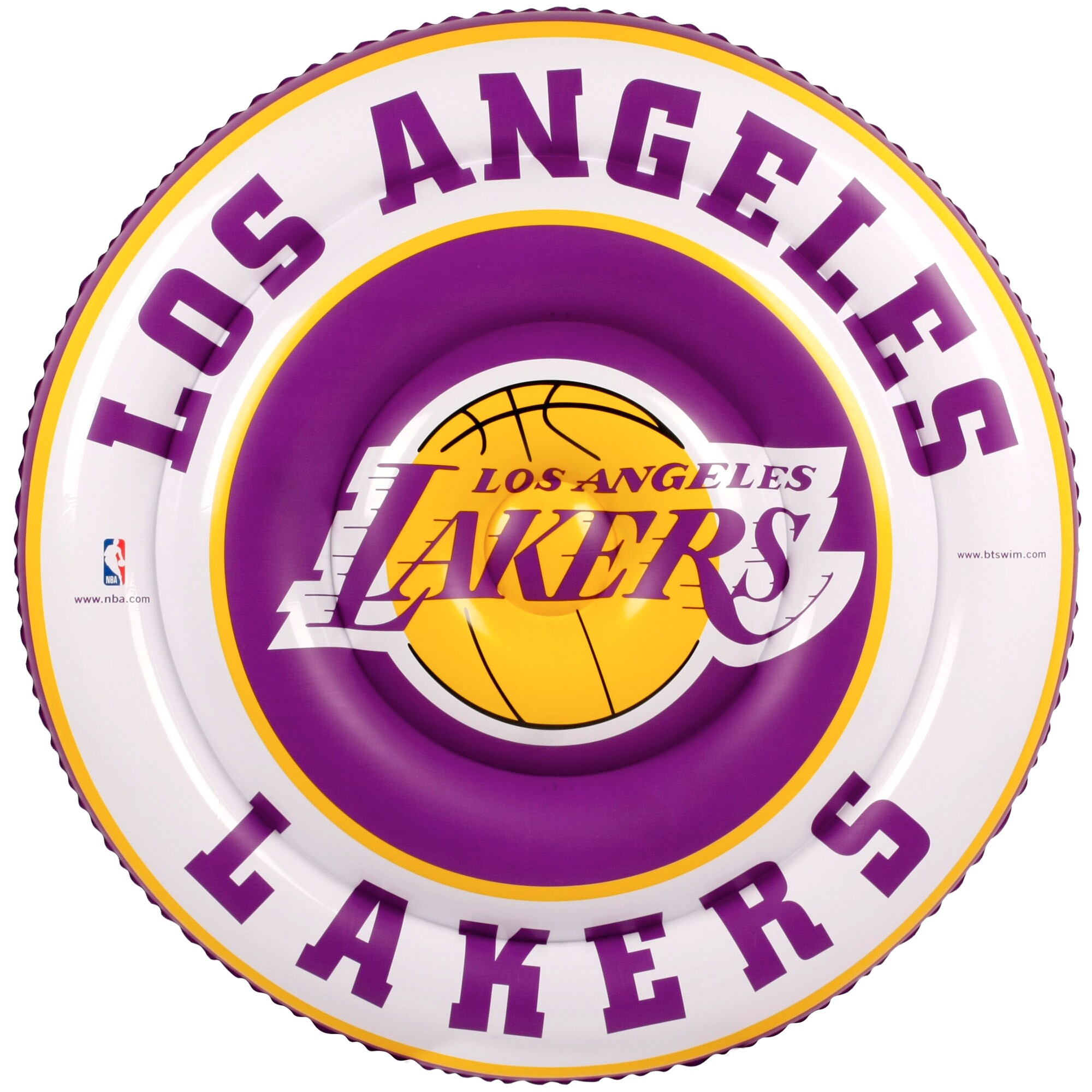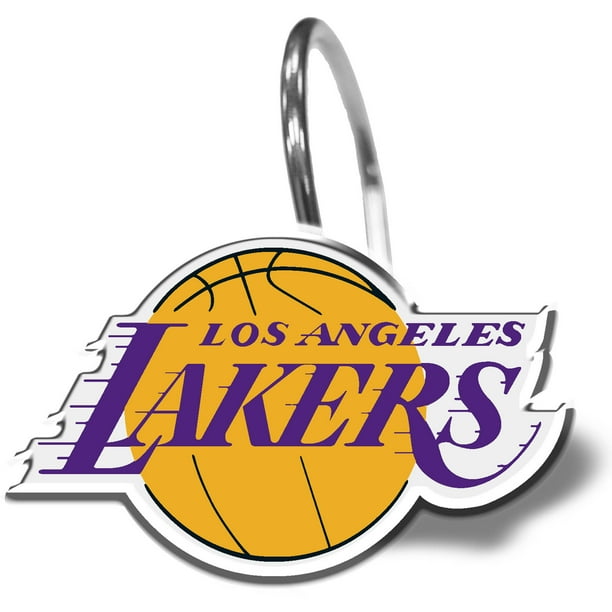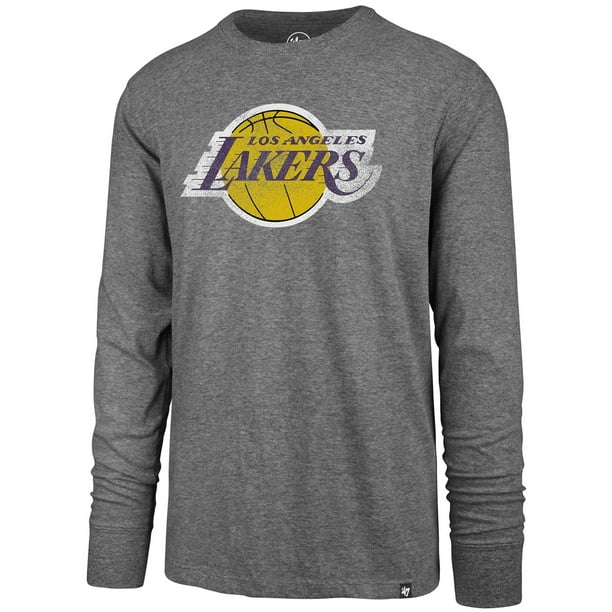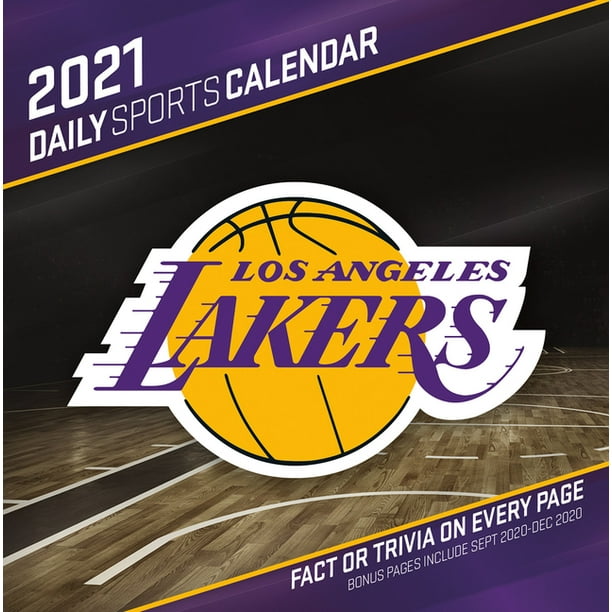
Generator Lakers Logo Font
Nba lakers showtime font.
Generator lakers logo font. The font used for los angeles lakers logo is very similar to bauer bodoni black italic which is a neoclassical serif font designed by giambattista bodoni heinrich jost and published by linotype. Please use the pulldown menu to view different character maps contained in this font. What font was used in los angeles lakers logo.
Whats the font used for los angeles lakers logo. Brandcrowd logo maker is easy to use and allows you full customization to get the font logo you want. The lakers logo features the lakers logotype as well as the text los angeles on a basketball.
Nba lakers refers to the font used in the lettering of los angeles lakers jersey. The lettering for the lakers logotype resembles a font named bodoni italic created by gerald giampa. Nba 2k12 lakers 97 98 vs lakers 2012 generation matchup.